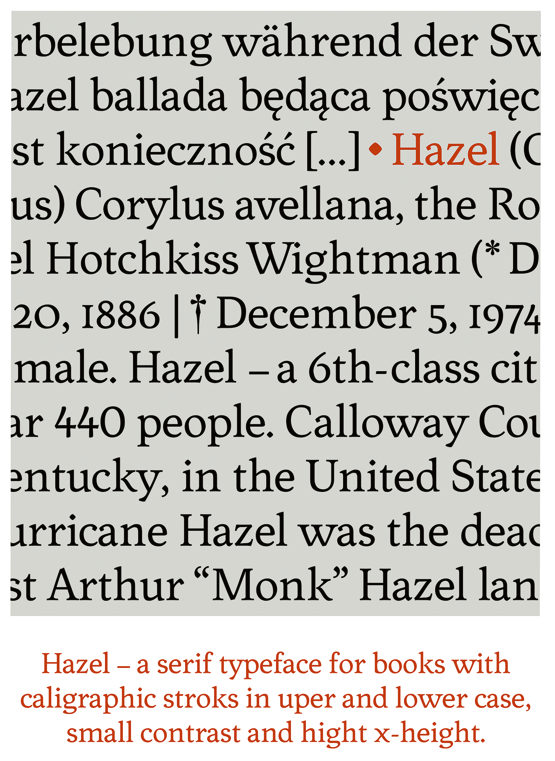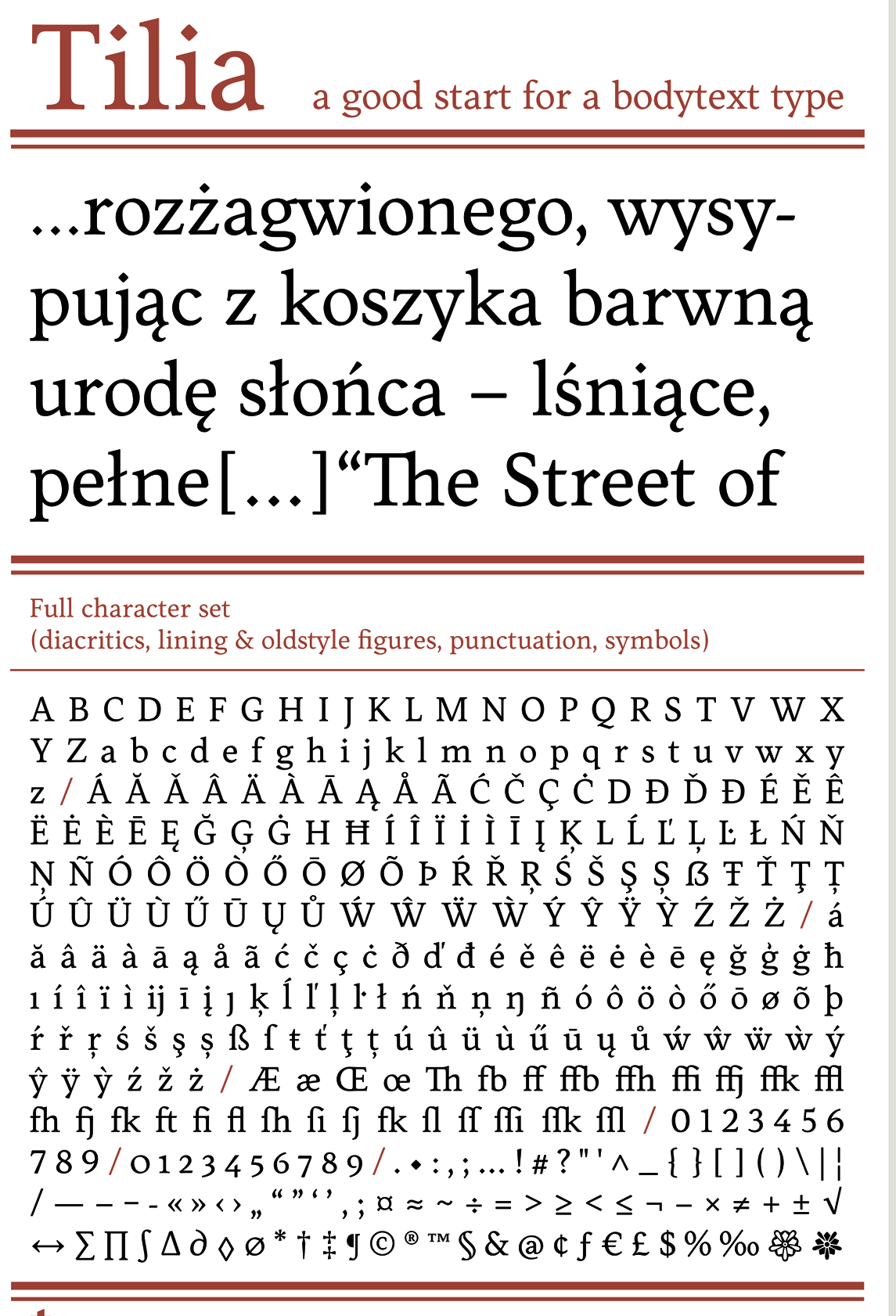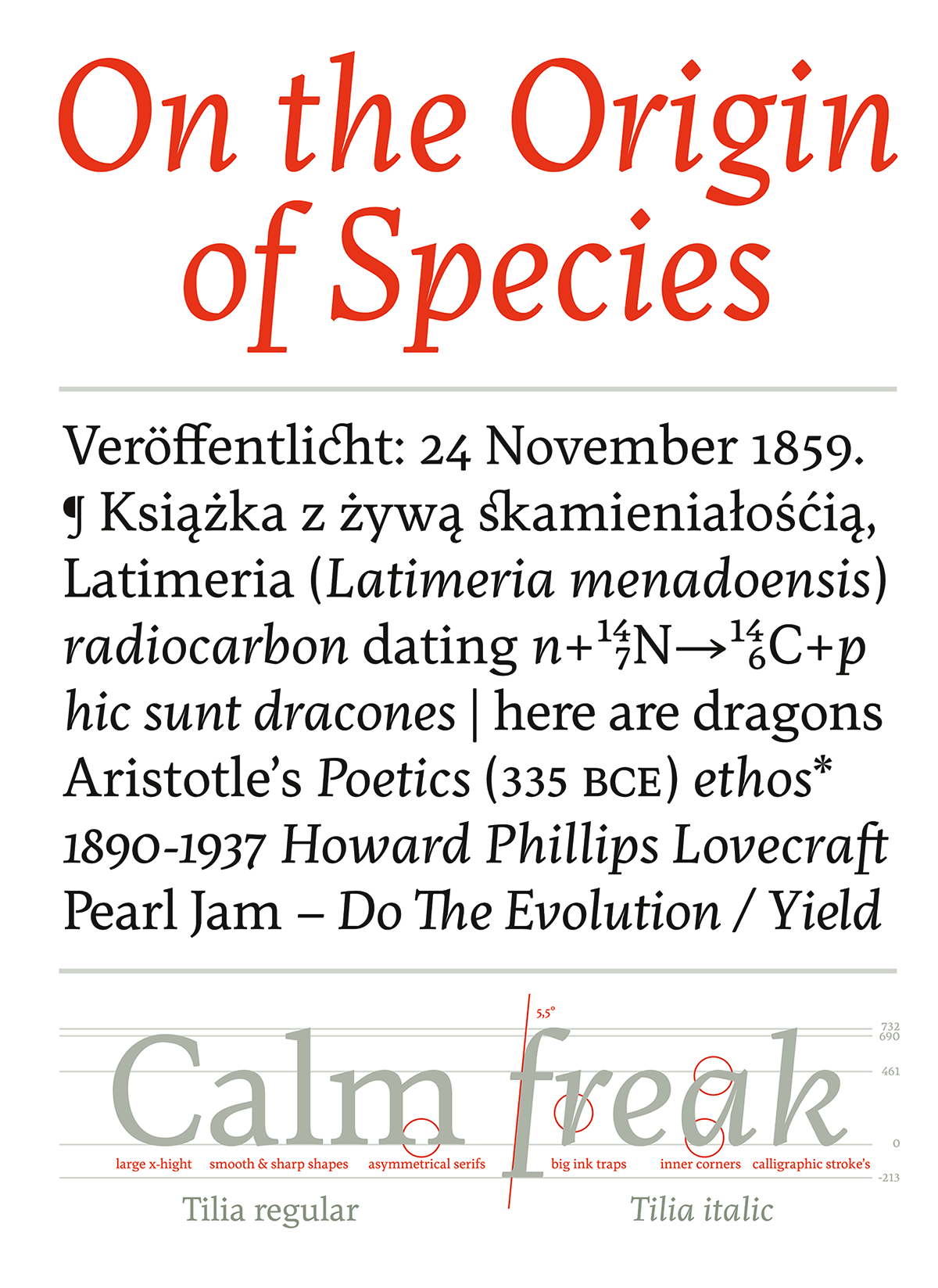
Dominika Langosz
Wroclaw, Poland-based type designer, who joined Three Dots Type, Marian Misiak's type foundry, in 2017. Creator of Broken Stamp (2013), an angular typeface developed during Typeclinic 6 in 2013. During Typeclinic 7, he created the calligraphic humanist serif typeface Hazel (2013). In 2014, he designed the text typeface Tilia. At Typeclinic 2015, he added Tilia Italic, and at Typeclinic 11th International Type Design Workshop, he completed Tilia Heavy (2015). Tilia was further extended at Typeclinic 12th International Type Design Workshop in 2016. At the 13th Typeclinic in Slovenia in 2016, Damian designed Juno, and adjusted Tilia. At Three Dots Type in 2019, he released the didone typeface family Heneczek Pro, which was co-designed with Dominika "Nika" Langosz. He wrote: Named after Teodor Heneczek, Silesian printer and publisher who started out the first Polish-language printing house in Upper Silesia (XIX century). Heneczek was ordered by the Municipal Public Library in Piekary Slaskie to commemorate the 200-th birthday of Teodor Heneczek. An extended and upgraded version of Heneczek called Heneczek Pro was designed for display purposes and text-heavy documents. Heneczek features a great set of arrows and pointers. |